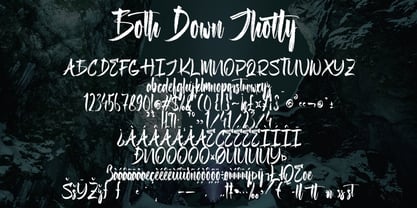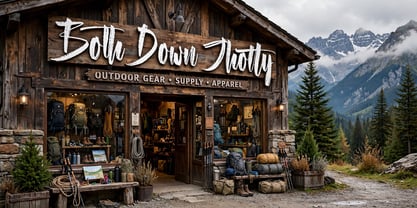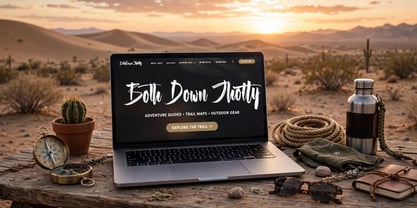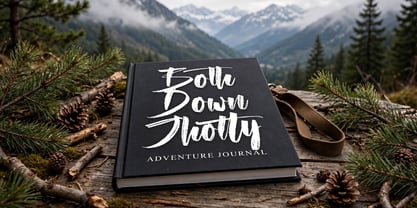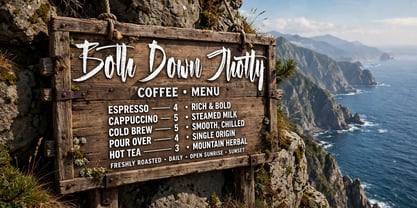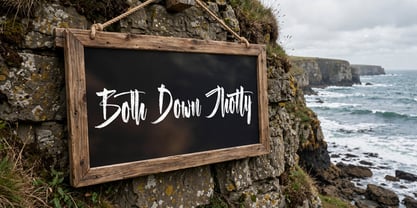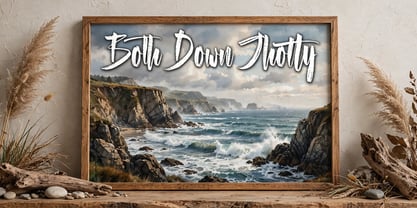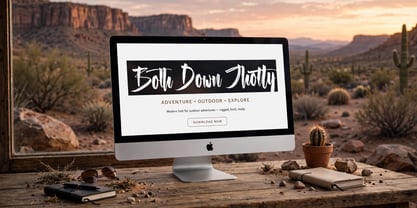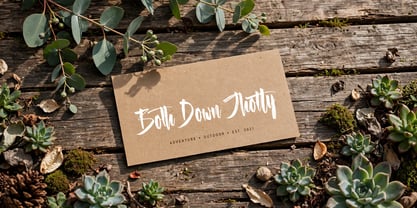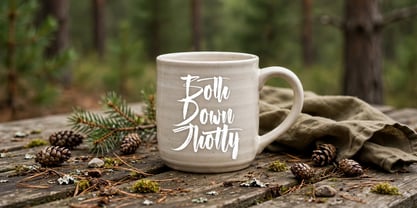
Both Down Jhotty
by Ayska
The Both Down Jhotty Font Family was designed by Dhoni Trihatmoko and published by Ayska. Both Down Jhotty contains 1 styles.
Dive into the captivating allure of Both Down Jhotty, a font that captures the chic essence of modernity, intertwined with an air of effortless, handwritten grace. This handcrafted artisanal font exudes sophistication and self-expression, proving to be a charismatic accomplice for your digital canvas. Whether you wish to engage audiences through your blog, weave unique allure into your digital planner designs, inject a pulse into your invites, or pour heartfelt messages in handmade cards, Both Down Jhotty delivers with sincerity. It allows you to rekindle nostalgia in your photo albums with its vintage feel, while igniting a spark of innovation in your custom decorations. This unique font turns your usual digital visuals into stunning, eye-pleasing pieces of artistry. Grounded in Menttarrhi, it enables your creativity to surge and wane, resonating with an impactful impressions. Delve into the artistic brilliance of Menttarrhi and witness as it meticulously morphs your creative dreams into palpable masterpieces.